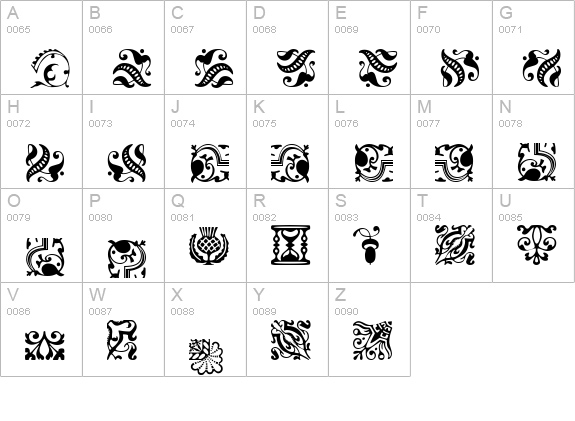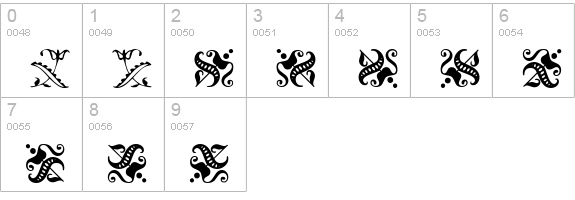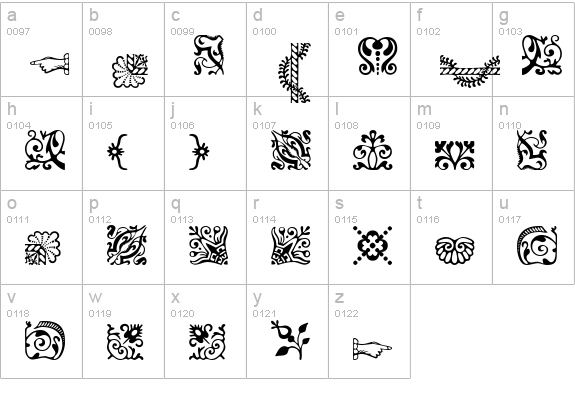
BordersOneSSK Font Details
BordersOneSSK is a unique and eye-catching font that adds a touch of elegance to any design. With its intricate borders and stylish curves, this font is perfect for creating stunning headlines, invitations, and more. The versatility of BordersOneSSK makes it ideal for a wide range of projects, from wedding invitations to branding materials. The best part? BordersOneSSK is completely free to download at FontsMarket.com. So whether you're a professional designer looking to add a new font to your collection or a hobbyist looking to spice up your projects, BordersOneSSK is the perfect choice. Download it today and start creating beautiful designs with this stunning font.